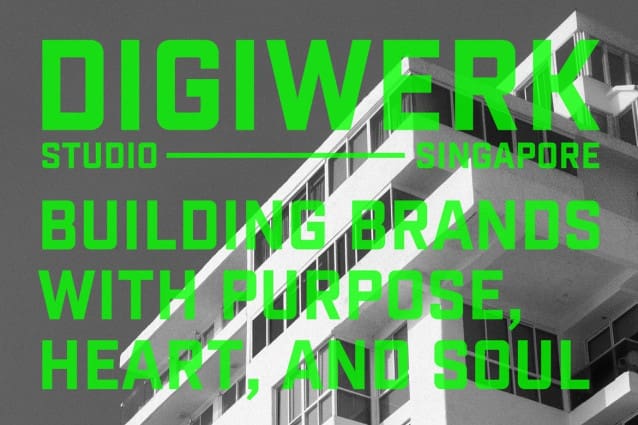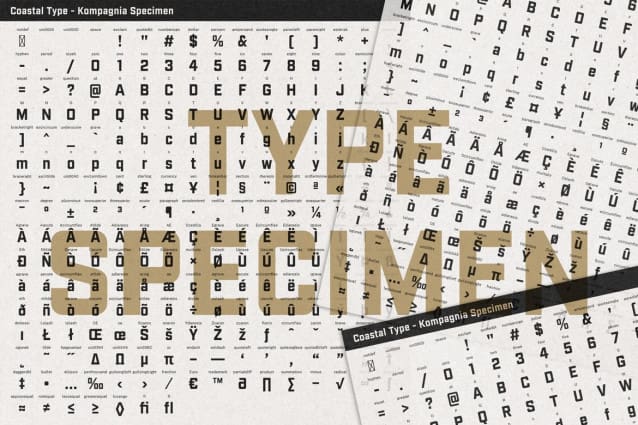
Kompagnia Font
Kompagnia Font – Made from a fusion of geometric and technical styles, Kompagnia exudes strength and resilience. Designed with Business in mind, this font family has flat terminals that complement the sharp corners perfectly. “Kompagnia” is not just a simple typeface; it’s a visual statement: visible, eye-catching